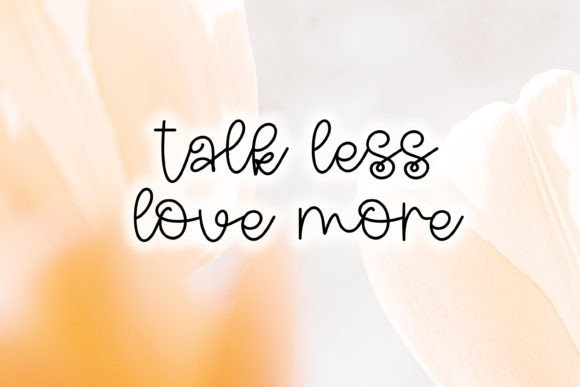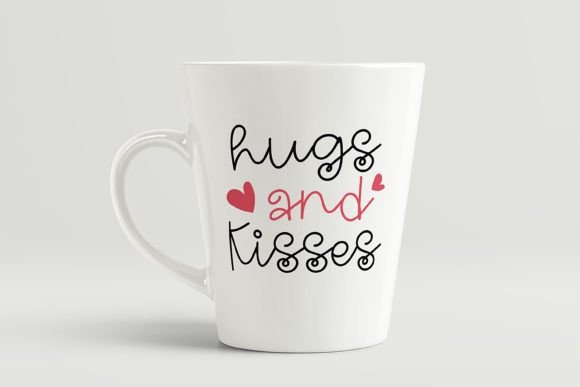
Peach Valentine Font
Peach Valentine is a cool, friendly, and informal handwritten font that can be used for all chalkboard quotes or teaching material! Its authentic look and feel will add a personal and realistic touch to your designs.